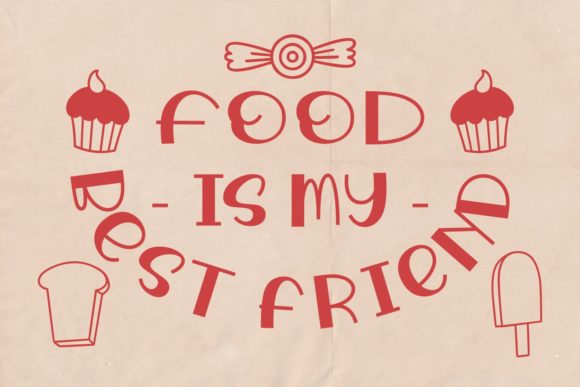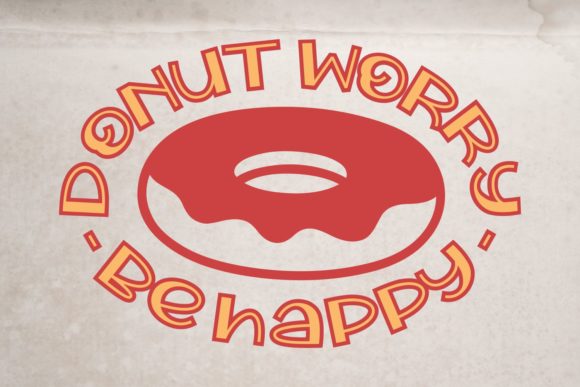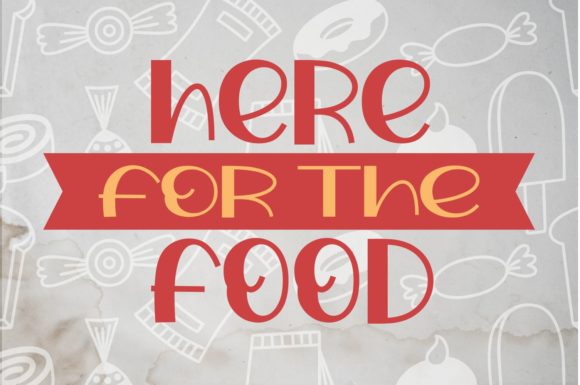
Dining Companion Font: Elevate Your Designs with a Timeless Classic
Are you on the hunt for a font that exudes elegance, sophistication, and a touch of friendliness? Look no further than the Dining Companion font. This stunning display font is perfect for designers and crafters seeking to create original and outstanding designs that capture the essence of classic style with a modern twist.
The Charm of Dining Companion Font
Dining Companion font boasts an incredibly classic style, reminiscent of traditional typography. Its authentic feel is sure to transport you to a bygone era, evoking memories of vintage posters, elegant wedding invitations, and beautifully crafted stationery. Yet, despite its classic roots, this font still manages to convey a friendly and approachable vibe, making it perfect for a wide range of design applications.
One of the most exciting aspects of the Dining Companion font is its versatility. Its unique blend of classic and friendly elements makes it an excellent choice for various design projects, including:
- Wedding Invitations: Create stunning wedding invitations that set the tone for a memorable and elegant celebration. The Dining Companion font is perfect for printing on high-quality paper or cardstock, ensuring your invitations exude sophistication and refinement.
- Stationery Art: Add a touch of elegance to your stationery with the Dining Companion font. Use it to create beautiful notecards, journals, and letterheads that showcase your personal style.
- Social Media Posts: Make your social media posts stand out with the Dining Companion font. Its eye-catching design is sure to grab attention and leave a lasting impression on your followers.
- Greeting Cards: Create adorable greeting cards for special occasions, such as birthdays, anniversaries, and holidays. The Dining Companion font adds a touch of warmth and personality to your designs.
Why Choose Dining Companion Font?
So, what sets the Dining Companion font apart from other display fonts on the market? Here are just a few reasons why designers and crafters love this font:
- Unique Style: The Dining Companion font features a distinctive style that blends classic elegance with a friendly feel. Its authentic look and feel make it perfect for designers seeking to create unique and memorable designs.
- High-Quality Design: This font is meticulously crafted to ensure high-quality design and exceptional legibility. Whether you’re using it for print or digital applications, the Dining Companion font delivers outstanding results.
Tips for Using Dining Companion Font
To get the most out of the Dining Companion font, here are a few tips to keep in mind:
- Experiment with Font Sizes: The Dining Companion font looks stunning in large display sizes, but it also works beautifully in smaller sizes. Experiment with different font sizes to find the perfect balance for your design.
- Pair with Complementary Fonts: For added visual interest, try pairing the Dining Companion font with complementary fonts that share similar design elements. This will create a cohesive look and add depth to your design.
- Play with Colors: The Dining Companion font looks stunning in a range of colors, from classic black and white to bold and bright hues. Experiment with different color schemes to find the perfect match for your design.
| Font Name | Dining Companion Font |
| Author | Rifki (7ntypes) |
In conclusion, the Dining Companion font is an exceptional display font that offers a unique blend of classic style and friendly charm. Its versatility, high-quality design, and ease of use make it perfect for designers and crafters seeking to create original and outstanding designs. Whether you’re creating wedding invitations, stationery art, social media posts, or greeting cards, the Dining Companion font is sure to elevate your designs and leave a lasting impression.